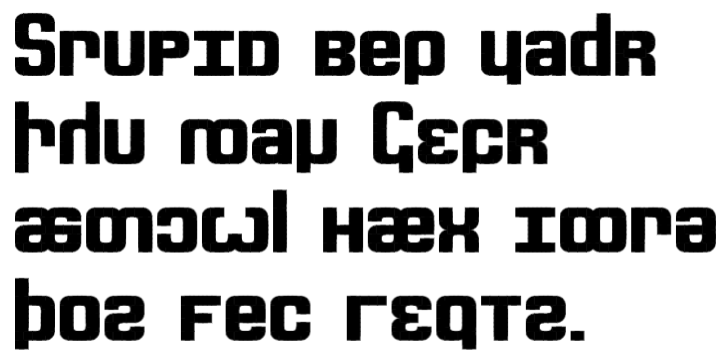
• A Revised (Q1vayzd), more organized (and hopefully intuitive) version of English Phonotype. Started mostly from the ground up, so some letters may appear like ones in the old version.
List of all letter keys and their respective sounds, with demonstrations in English words:
Key A: a - “call,” “Saul,” “ought,” “awe,” “pot”
Key B: b - “blue”
Key C: tʃ - “choose”
Key D: d - “do”
Key E: e - “age,” “eight”
Key F: f - “fine,” “photo”
Key G: g - “goal”
Key H: h - “hello”
Key I: i - “eat,” "evil," “eek”
Key J: dʒ - “jeans,” “genes”
Key K: k - “call,” “kale,” “chasm”
Key L: l - “left”
Key M: m - “me”         !!!no longer resembles N to avoid confusion
Key N: n - “new,” “knew,” “gnu”    !!!same story as M
Key O: o - “open,” “au jus”
Key P: p - “pass”
Key Q: ɹ̠ - “red”
Key R: ɚ - “urge”
Key S: s - “sell,” “cell”
Key T: t - “Tuesday”
Key U: u - “ooze,” “tomb,” “uber,” "grew," “you,” “shoe”
Key V: v - “very”
Key W: w - “walk”
Key X: ʒ - “measure,” “azure”
Key Y: j - “yew”
Key Z: z - “zoo,” “xenon,” “bees”
Key `: ɾ - “metal,” “medal”
Key 1: ɪ - “in”
Key 2: ə - “under," “touch,” “amid”
Key 3: ʊ - “look”
Key 4: ɛ - “elf”
Key 5: ŋ - “thing,” “think”
Key 6: æ - “ash”
Key 7: ɛə (raised æ) - “ankle” (note: I pronounce this as one sound, but the IPA has no one corresponding symbol. It lies between æ and ɛ.)
Key 8: ʃ - “shape”
Key 9: θ - “thorn”
Key 0: ð - “those”
Key -: ʔ - “uh-oh,” “hat”
Numbers have been displaced (which is a feature common to all English Phonotype fonts I have made, but never mentioned until now) from the number keys, seeing as there are letters there now. In order from 0 to 9, the way to type the digits is as follows:
=: 0
+: 1
[: 2
{: 3
]: 4
}: 5
\: 6
|: 7
<: 8
>: 9
The previous iteration of English Phonotype featured symbols for “and” and “the,” both simple words with different pronunciations depending on the context. I would have included more if the entire keyboard were not filled up. Now that ɾ has taken over the ` key, however, these two have been moved to the accented As and given some company in the form of “or.” They also now have upper and lowercase forms.
À/à - And
Á/á - The
Â/â - Or
A new pangram! Now including ɾ. It reads: “Stupid beige water threw my Cheshire angle hat into those fake veggies.”